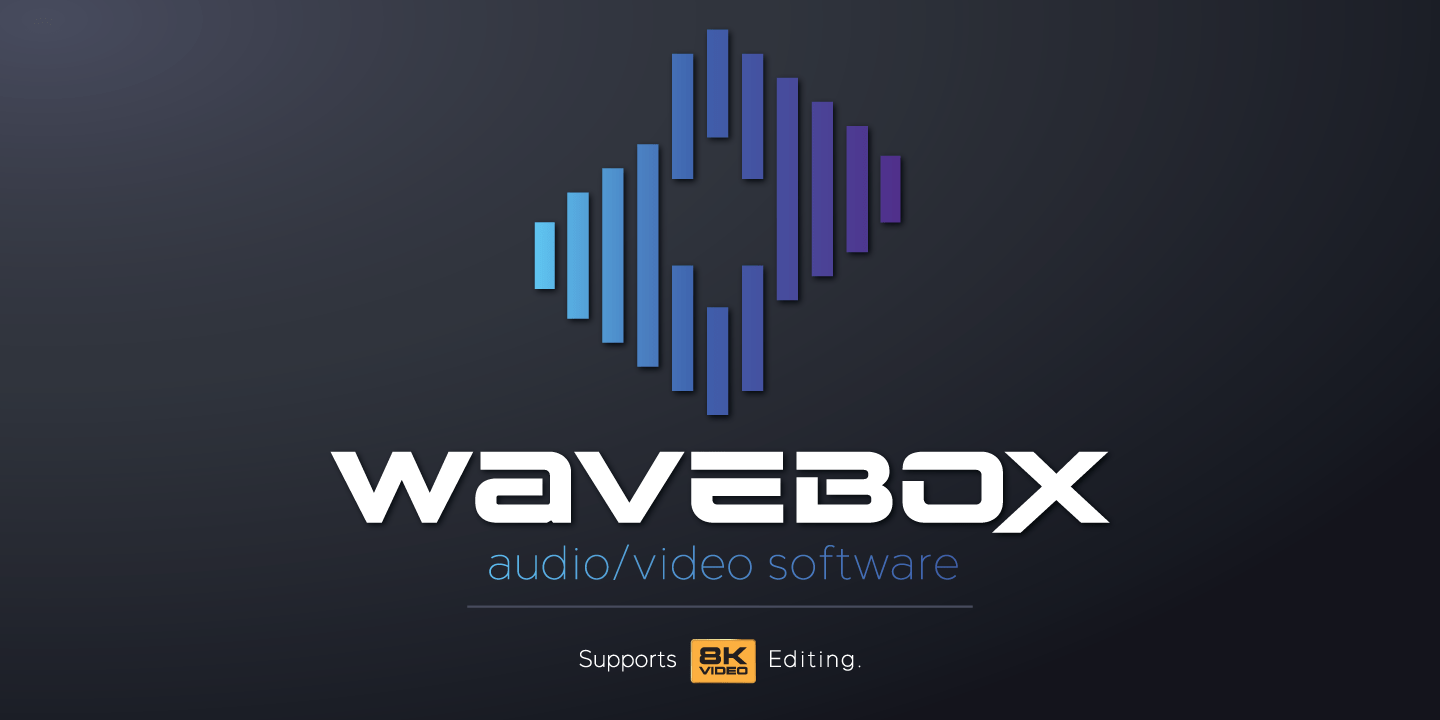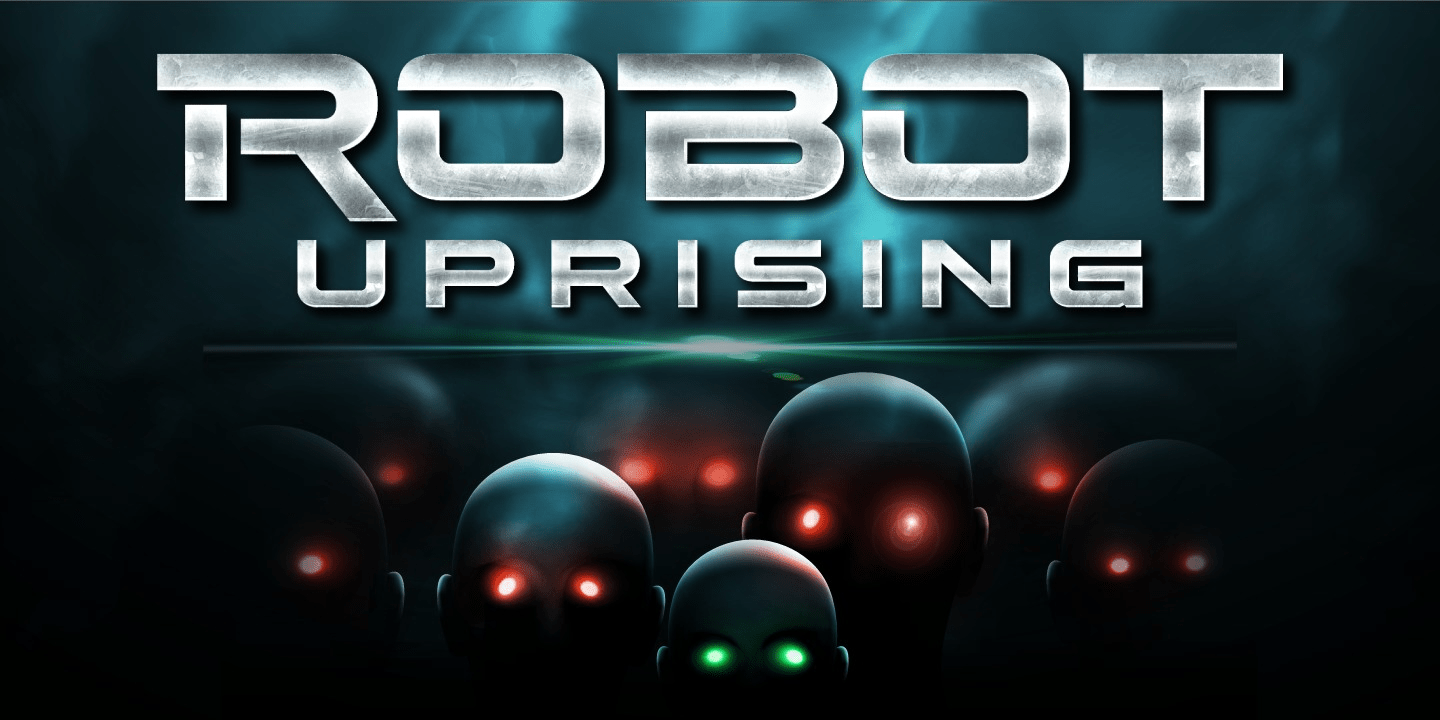
Future Tense Font
Future Tense Font - Future tense by a bold, geometric font with a futuristic style. This font features a bold, geometric design. Examples of this font can be found on the font site exfont, designed by charles borges de oliveira and vassil kateliev, include the. Future tense is a modern type style that is perfect for logos, film, video games, packaging, signs, and more. Future tense is a modern type style that is perfect for logos, film, video games, packaging, signs, and more.
Examples of this font can be found on the font site exfont, designed by charles borges de oliveira and vassil kateliev, include the. Future tense by a bold, geometric font with a futuristic style. Future tense is a modern type style that is perfect for logos, film, video games, packaging, signs, and more. Future tense is a modern type style that is perfect for logos, film, video games, packaging, signs, and more. This font features a bold, geometric design.
Future tense is a modern type style that is perfect for logos, film, video games, packaging, signs, and more. Examples of this font can be found on the font site exfont, designed by charles borges de oliveira and vassil kateliev, include the. Future tense by a bold, geometric font with a futuristic style. This font features a bold, geometric design. Future tense is a modern type style that is perfect for logos, film, video games, packaging, signs, and more.
Examples of this font can be found on the font site exfont, designed by charles borges de oliveira and vassil kateliev, include the. This font features a bold, geometric design. Future tense by a bold, geometric font with a futuristic style. Future tense is a modern type style that is perfect for logos, film, video games, packaging, signs, and more..
Examples of this font can be found on the font site exfont, designed by charles borges de oliveira and vassil kateliev, include the. This font features a bold, geometric design. Future tense is a modern type style that is perfect for logos, film, video games, packaging, signs, and more. Future tense by a bold, geometric font with a futuristic style..
Future tense by a bold, geometric font with a futuristic style. Examples of this font can be found on the font site exfont, designed by charles borges de oliveira and vassil kateliev, include the. This font features a bold, geometric design. Future tense is a modern type style that is perfect for logos, film, video games, packaging, signs, and more..
Future tense by a bold, geometric font with a futuristic style. Future tense is a modern type style that is perfect for logos, film, video games, packaging, signs, and more. Future tense is a modern type style that is perfect for logos, film, video games, packaging, signs, and more. This font features a bold, geometric design. Examples of this font.
Future tense is a modern type style that is perfect for logos, film, video games, packaging, signs, and more. Future tense is a modern type style that is perfect for logos, film, video games, packaging, signs, and more. Future tense by a bold, geometric font with a futuristic style. Examples of this font can be found on the font site.
Future tense is a modern type style that is perfect for logos, film, video games, packaging, signs, and more. This font features a bold, geometric design. Examples of this font can be found on the font site exfont, designed by charles borges de oliveira and vassil kateliev, include the. Future tense is a modern type style that is perfect for.
Future tense by a bold, geometric font with a futuristic style. Future tense is a modern type style that is perfect for logos, film, video games, packaging, signs, and more. Future tense is a modern type style that is perfect for logos, film, video games, packaging, signs, and more. This font features a bold, geometric design. Examples of this font.
Examples of this font can be found on the font site exfont, designed by charles borges de oliveira and vassil kateliev, include the. Future tense is a modern type style that is perfect for logos, film, video games, packaging, signs, and more. This font features a bold, geometric design. Future tense by a bold, geometric font with a futuristic style..
This font features a bold, geometric design. Future tense is a modern type style that is perfect for logos, film, video games, packaging, signs, and more. Examples of this font can be found on the font site exfont, designed by charles borges de oliveira and vassil kateliev, include the. Future tense by a bold, geometric font with a futuristic style..
Examples Of This Font Can Be Found On The Font Site Exfont, Designed By Charles Borges De Oliveira And Vassil Kateliev, Include The.
Future tense is a modern type style that is perfect for logos, film, video games, packaging, signs, and more. Future tense is a modern type style that is perfect for logos, film, video games, packaging, signs, and more. Future tense by a bold, geometric font with a futuristic style. This font features a bold, geometric design.